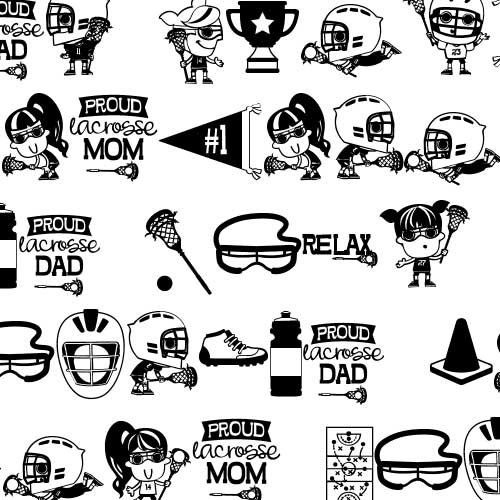
DB Unstoppable - Lacrosse - DB
This adorable doodlebat features 26 lacrosse players and lacrosse themed images. Perfect for your athlete, scrap book pages, card making, gifts, decor, planner stickers and more!